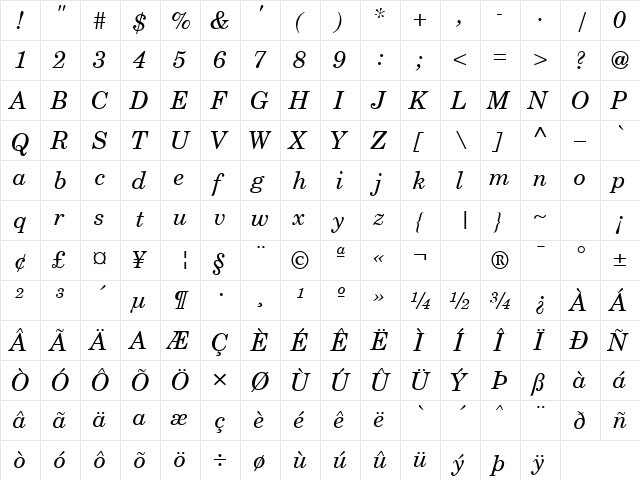
New Cent Schoolbook Italic Italic
Design Context for New Cent Schoolbook Italic Typeface
New Cent Schoolbook Italic is a composed and adaptable typeface that performs quietly and consistently across a wide range of design contexts. The dynamic lean of this cut emphasises speed and emphasis in any layout.
Pro Tip: Use New Cent Schoolbook Italic for emphasis, pull quotes, and subheadings where its slanted energy can add rhythm to the layout.